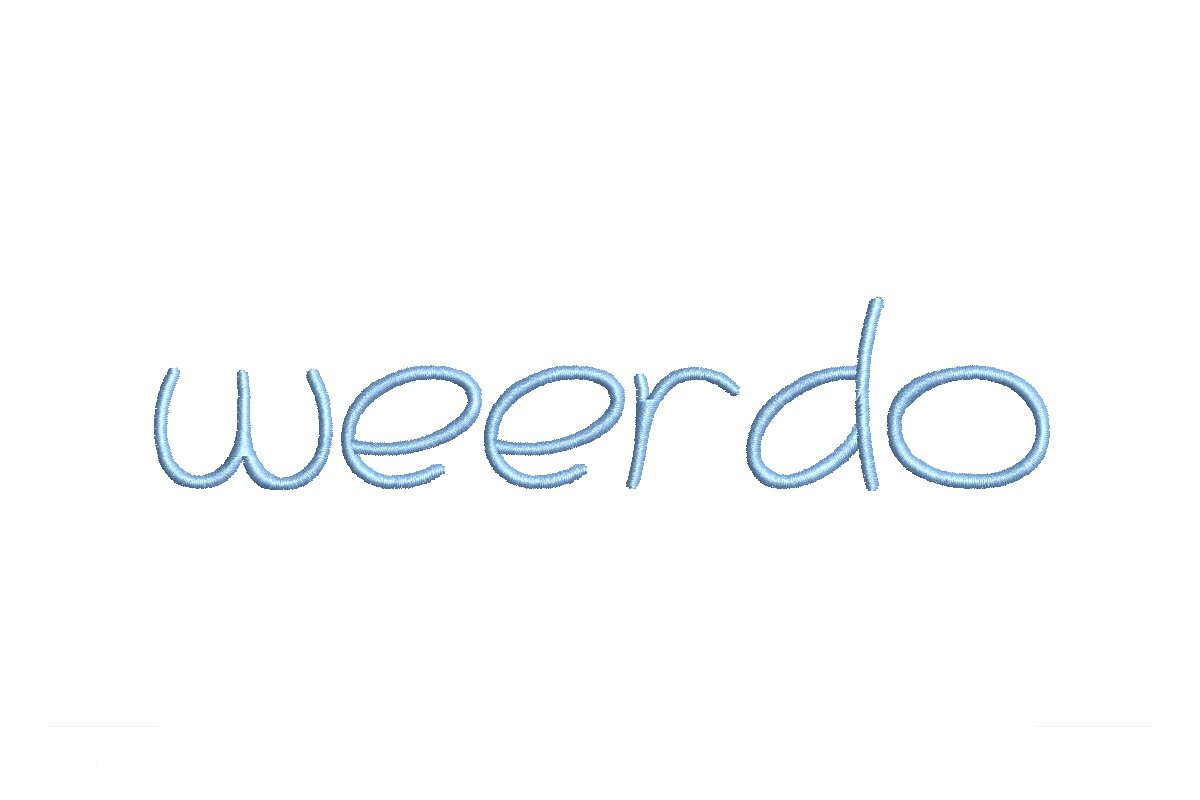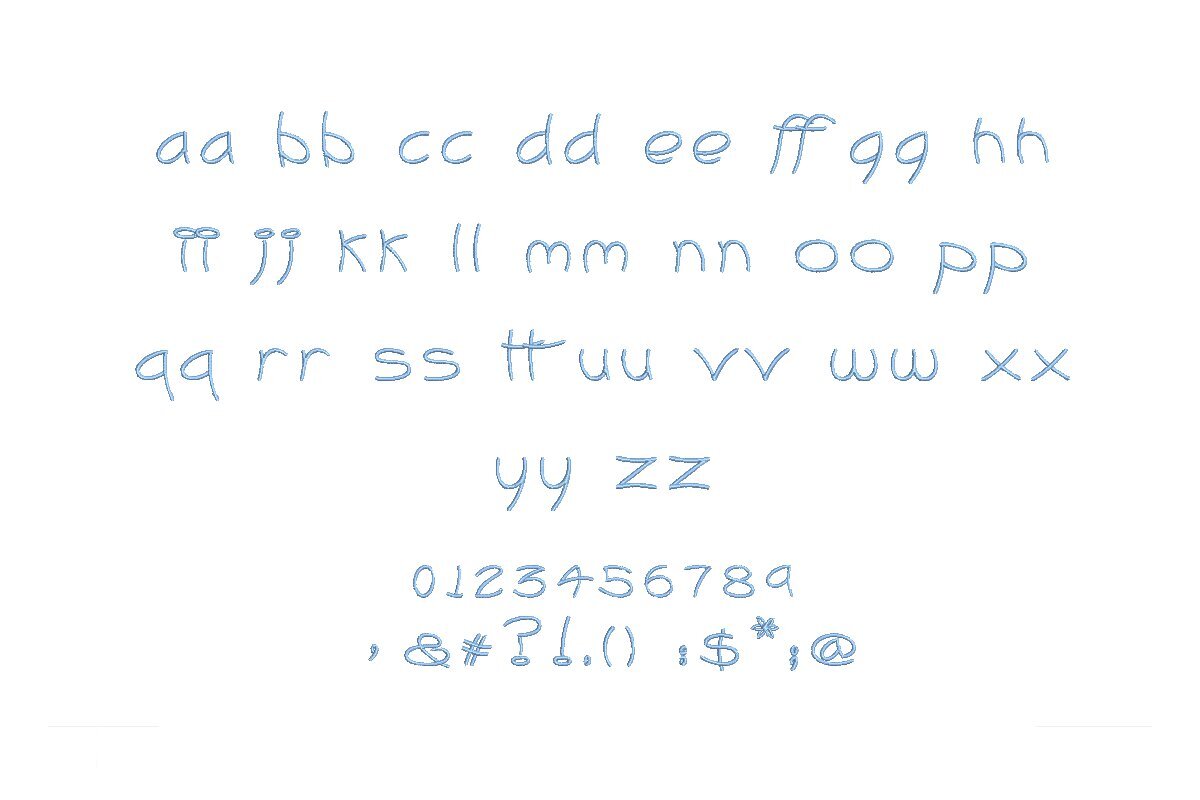
Weerdo ESA Font
Introducing the Weerdo ESA Font - Quirky Creativity for Your Embroidery! Custom-crafted for seamless compatibility with Wilcom Studio e4.5.6 and Hatch 3 versions and beyond, this font adds a playful twist to your designs. Whether you're a seasoned pro or a spirited enthusiast, Weerdo ESA Font unlocks a world of quirky possibilities. Seamlessly integrate it with the latest software, ensuring efficient and precise stitching. Each design radiates whimsy and charm, ensuring your embroidery projects stand out with unique character. Don't miss the chance to infuse a dash of eccentricity into your collection with Weerdo ESA Font. Start your journey into creative and offbeat embroidery today!